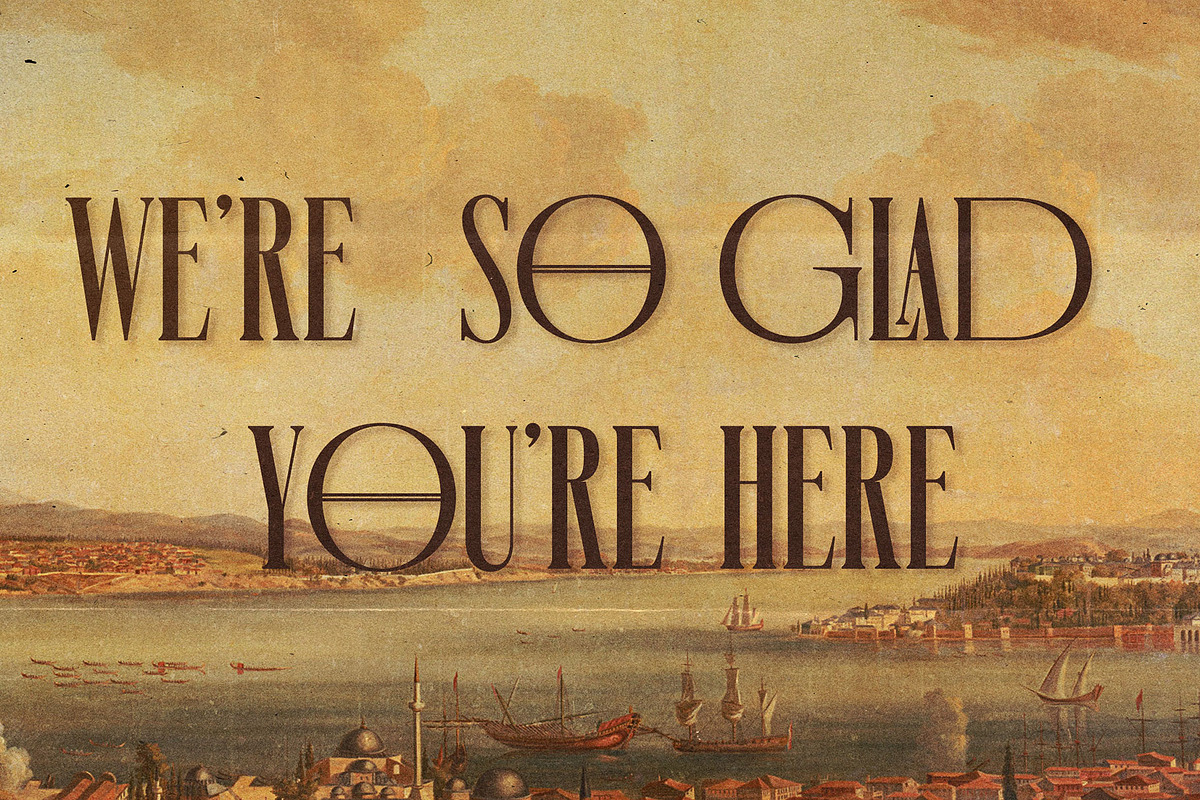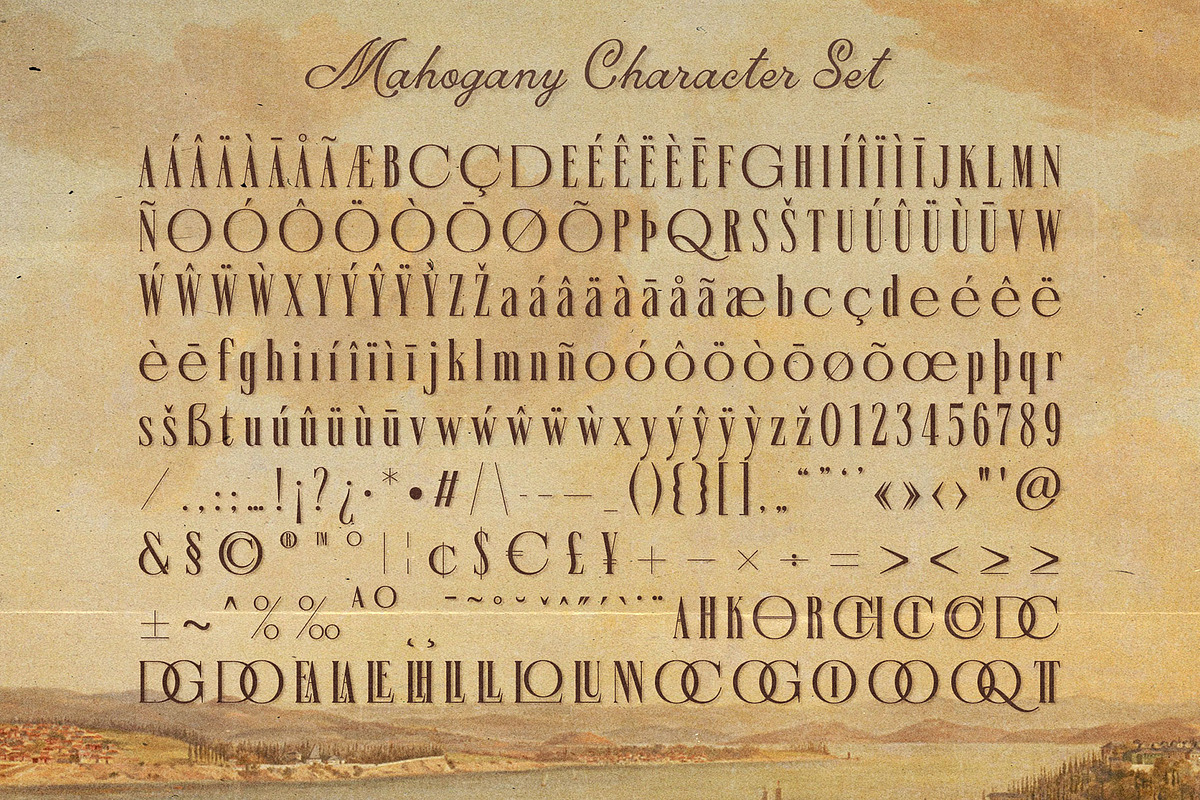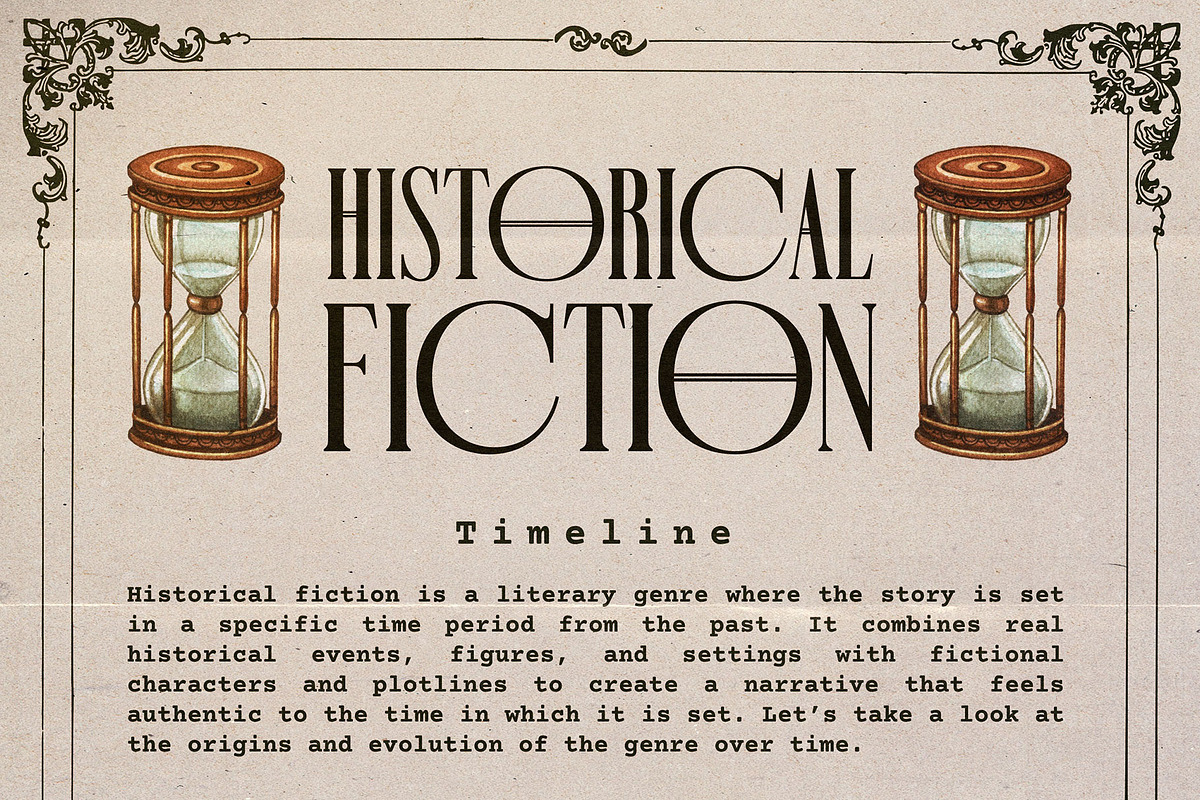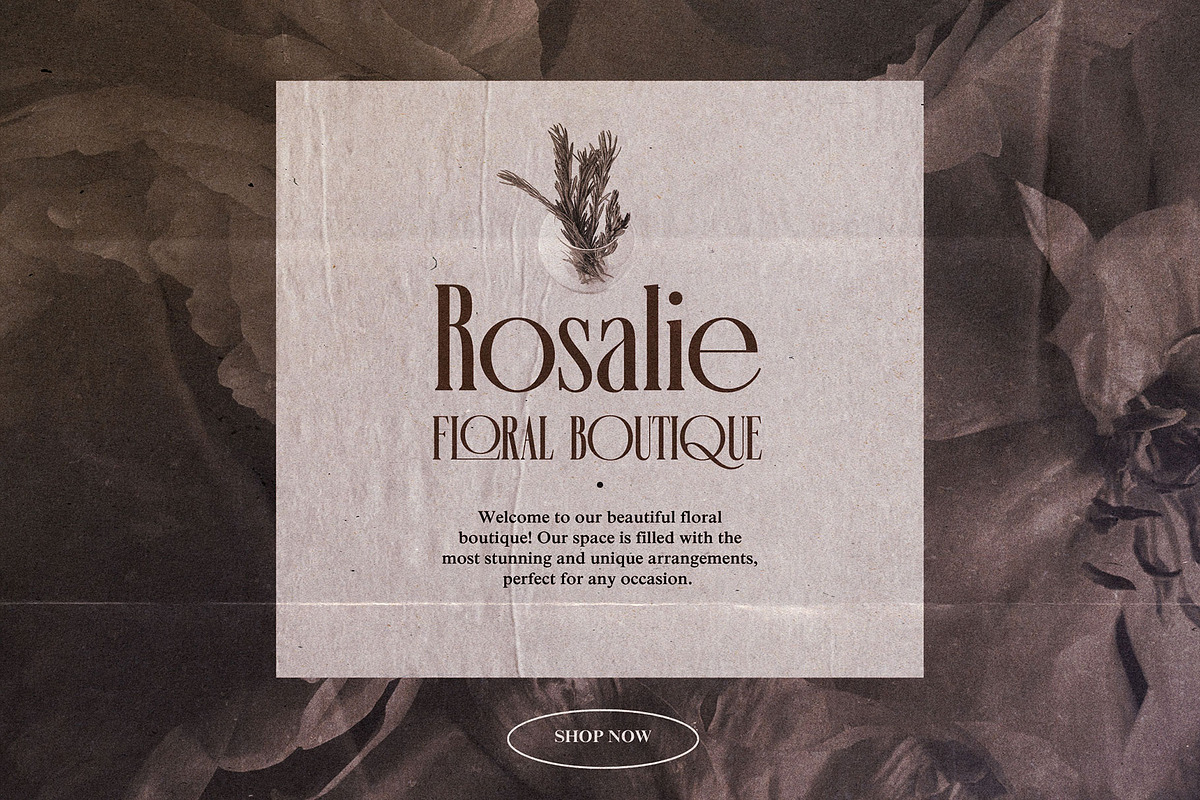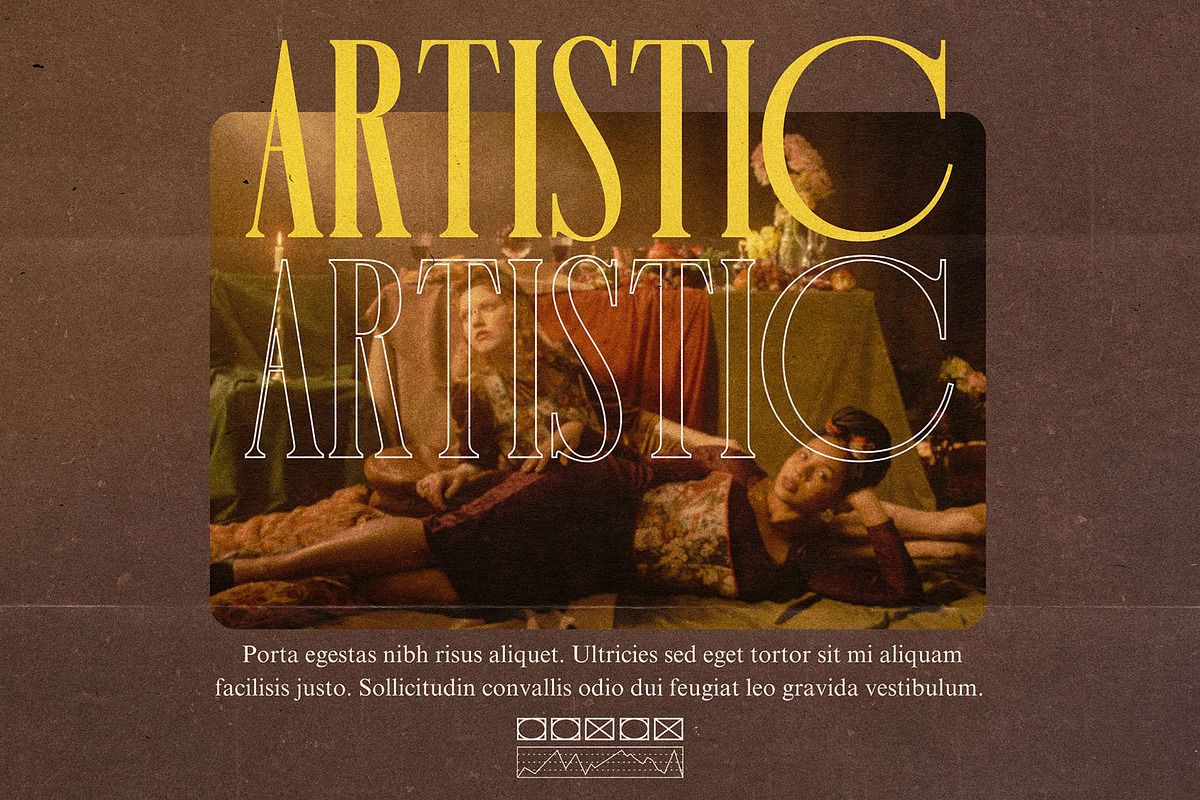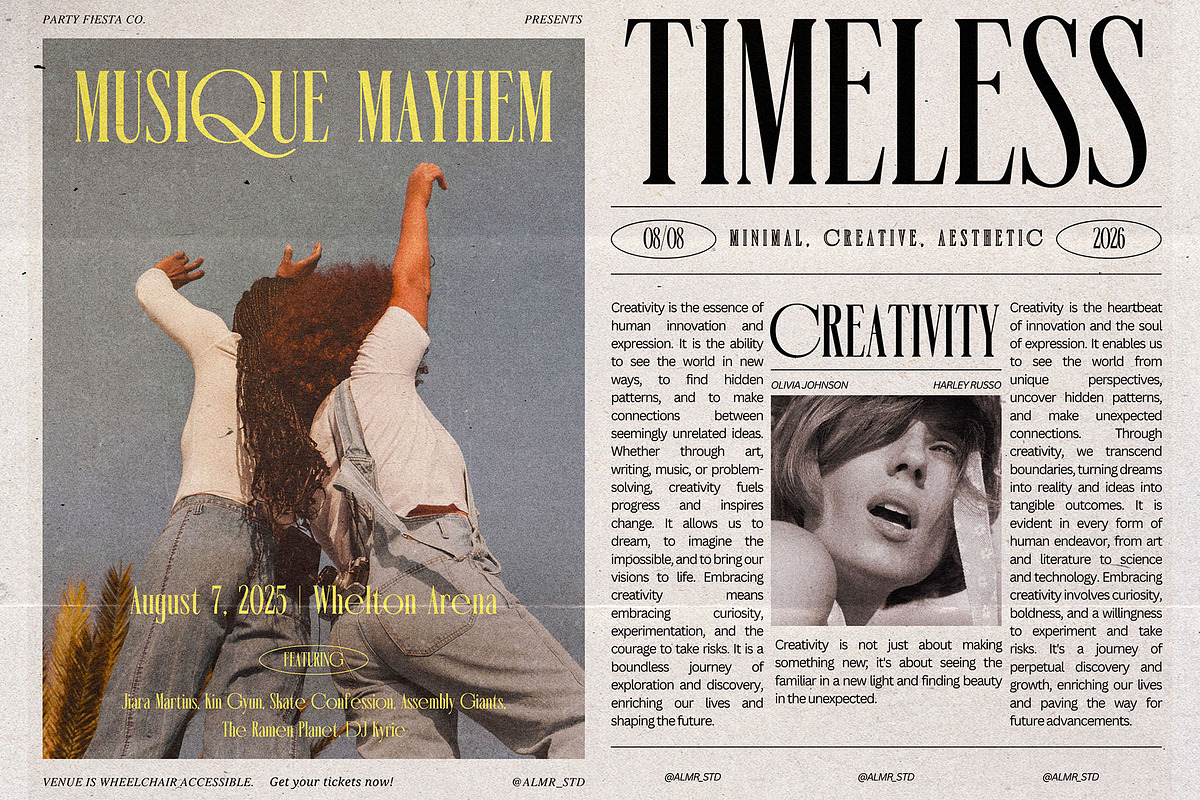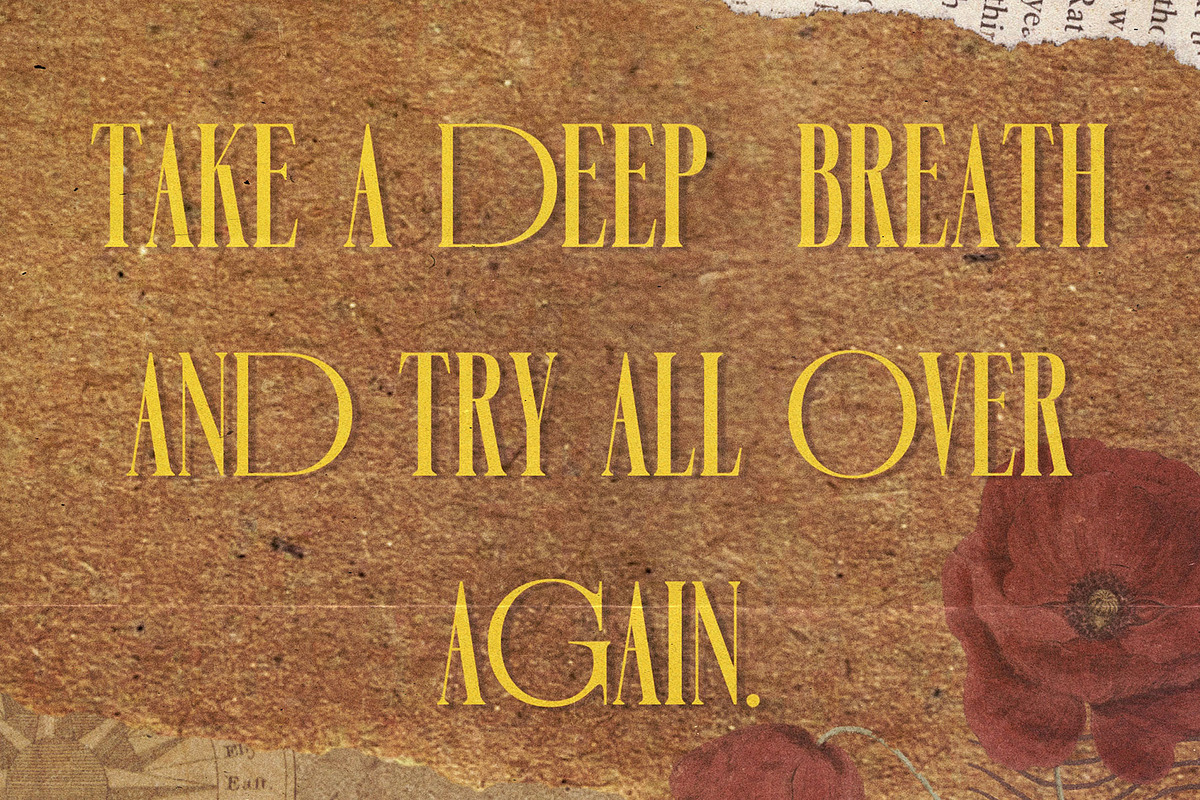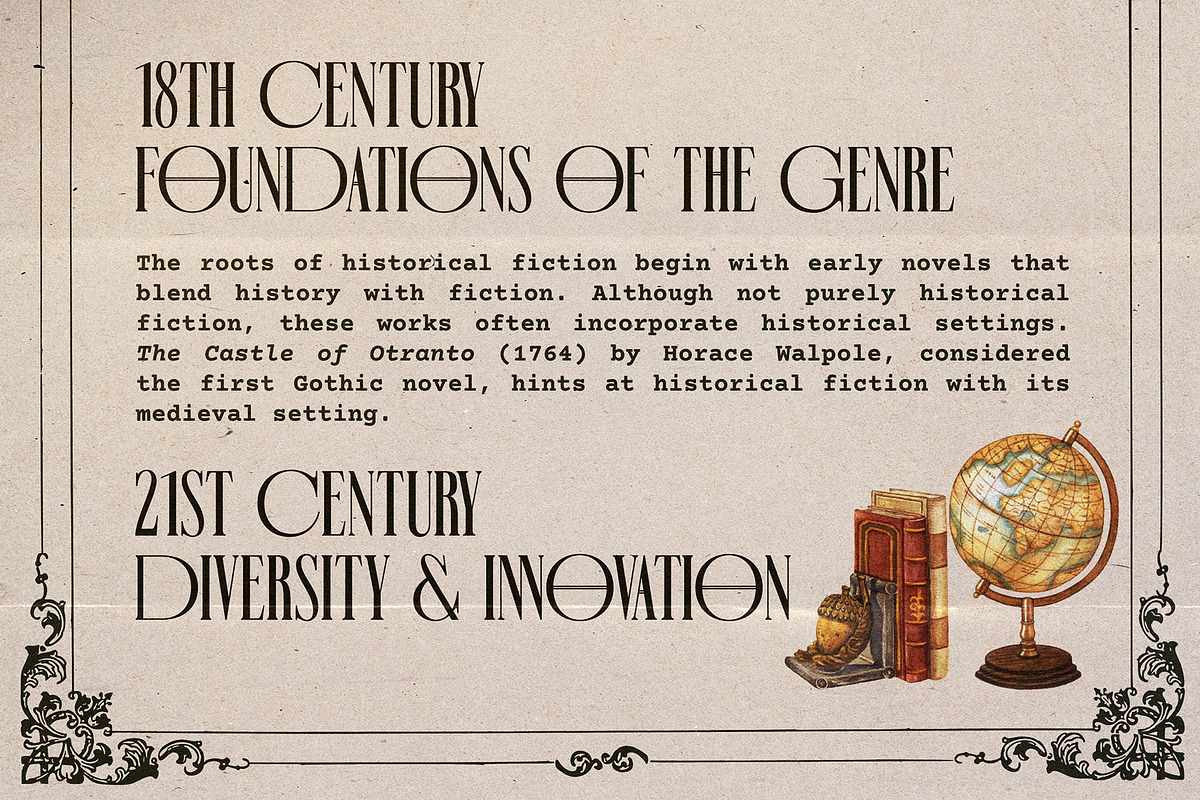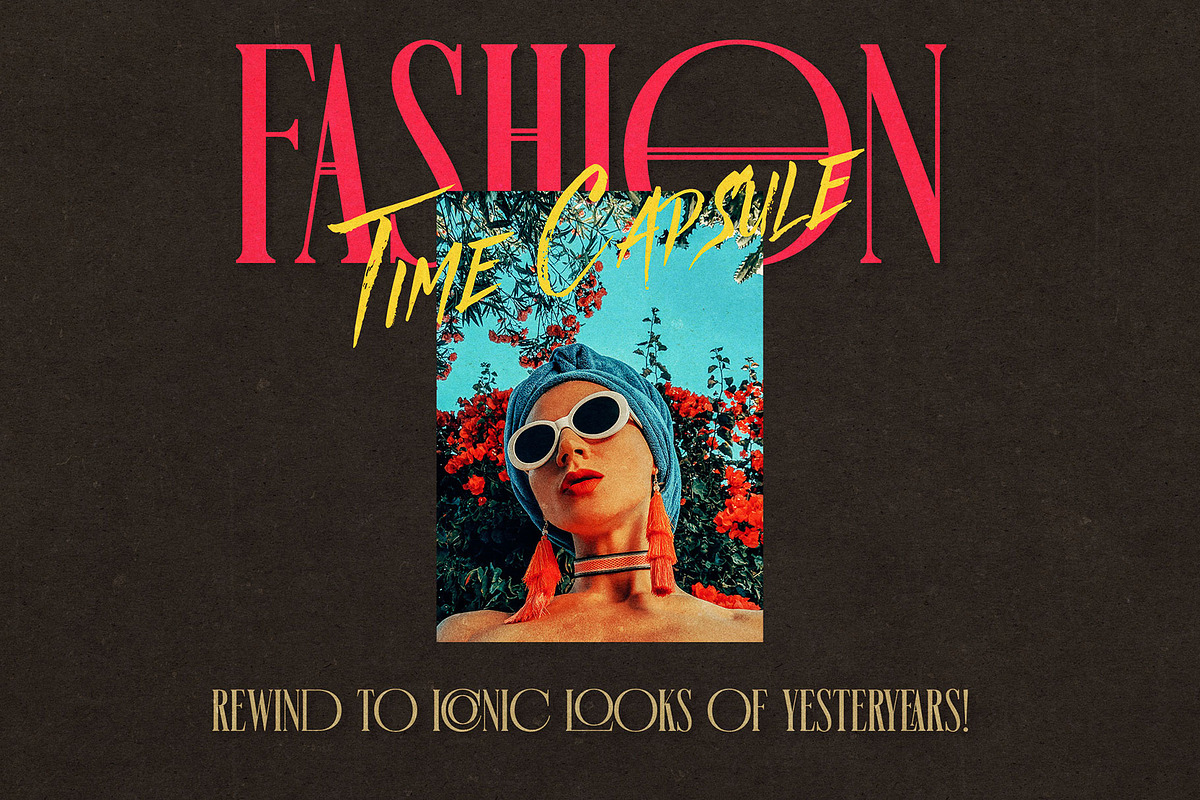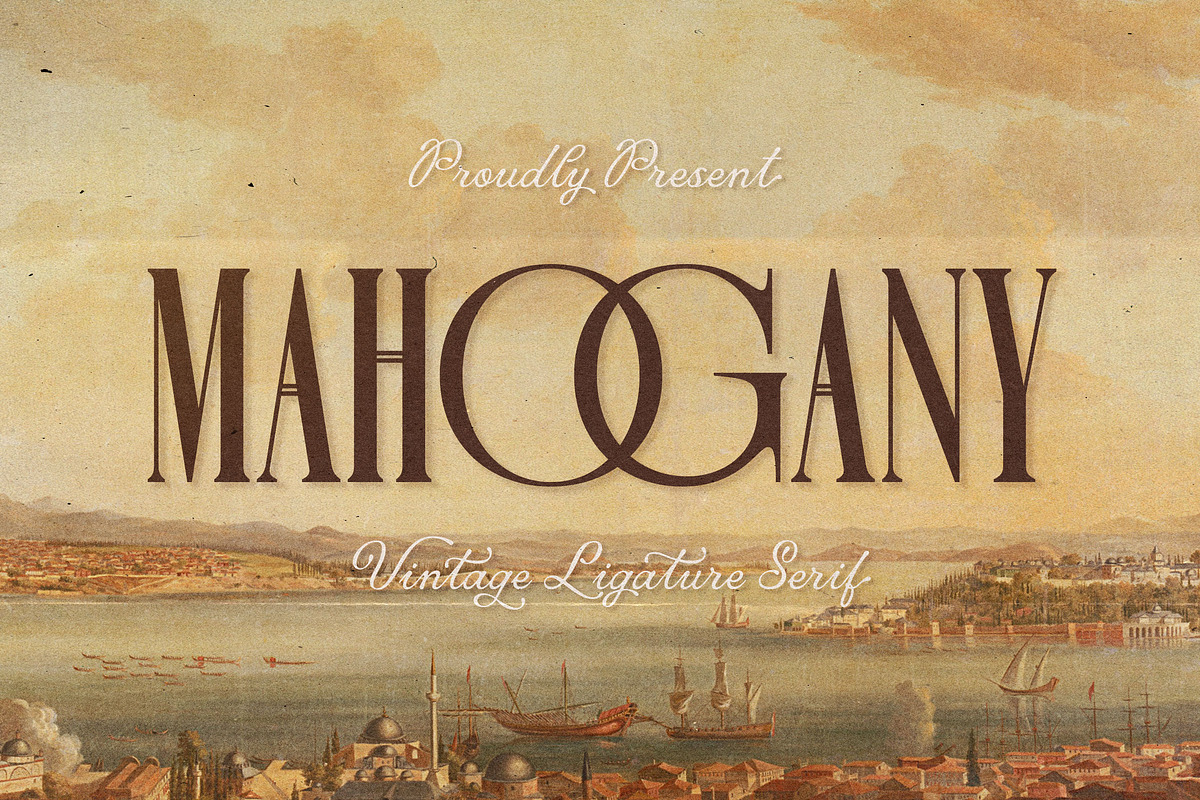
Mahogany - Vintage Ligature Serif
Mahogany is a refined condensed serif font that radiates elegance and luxury. With its distinctive style, this font is the perfect choice for crafting exquisite logotypes, eye-catching magazine layouts, and more. Designed to elevate your projects, Mahogany offers a versatile collection of alternates and ligatures, making it the ideal solution for creating standout designs with a sophisticated touch. Whether you're working on high-end branding or editorial masterpieces, Mahogany adds a timeless, polished finish to any creative endeavor.